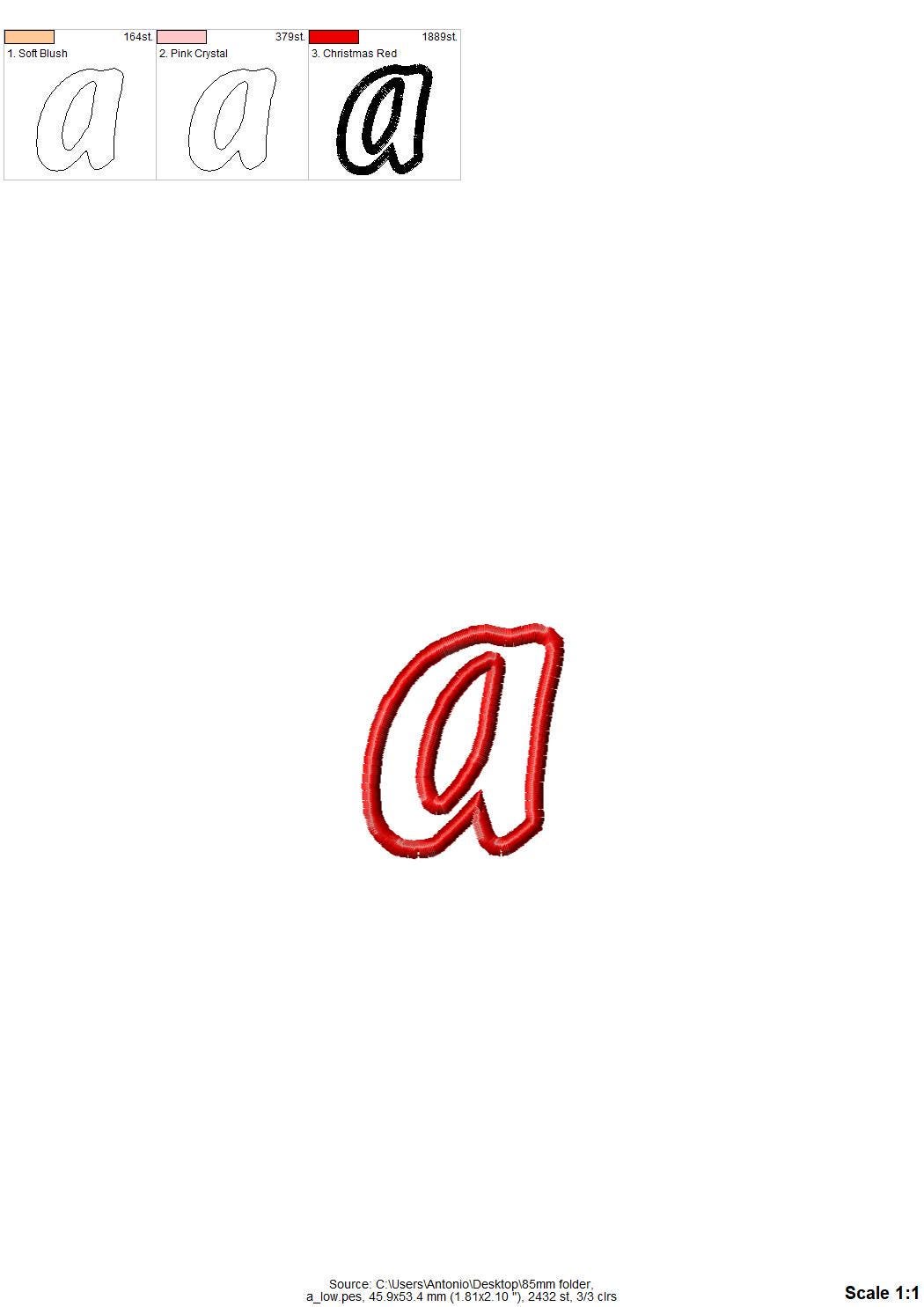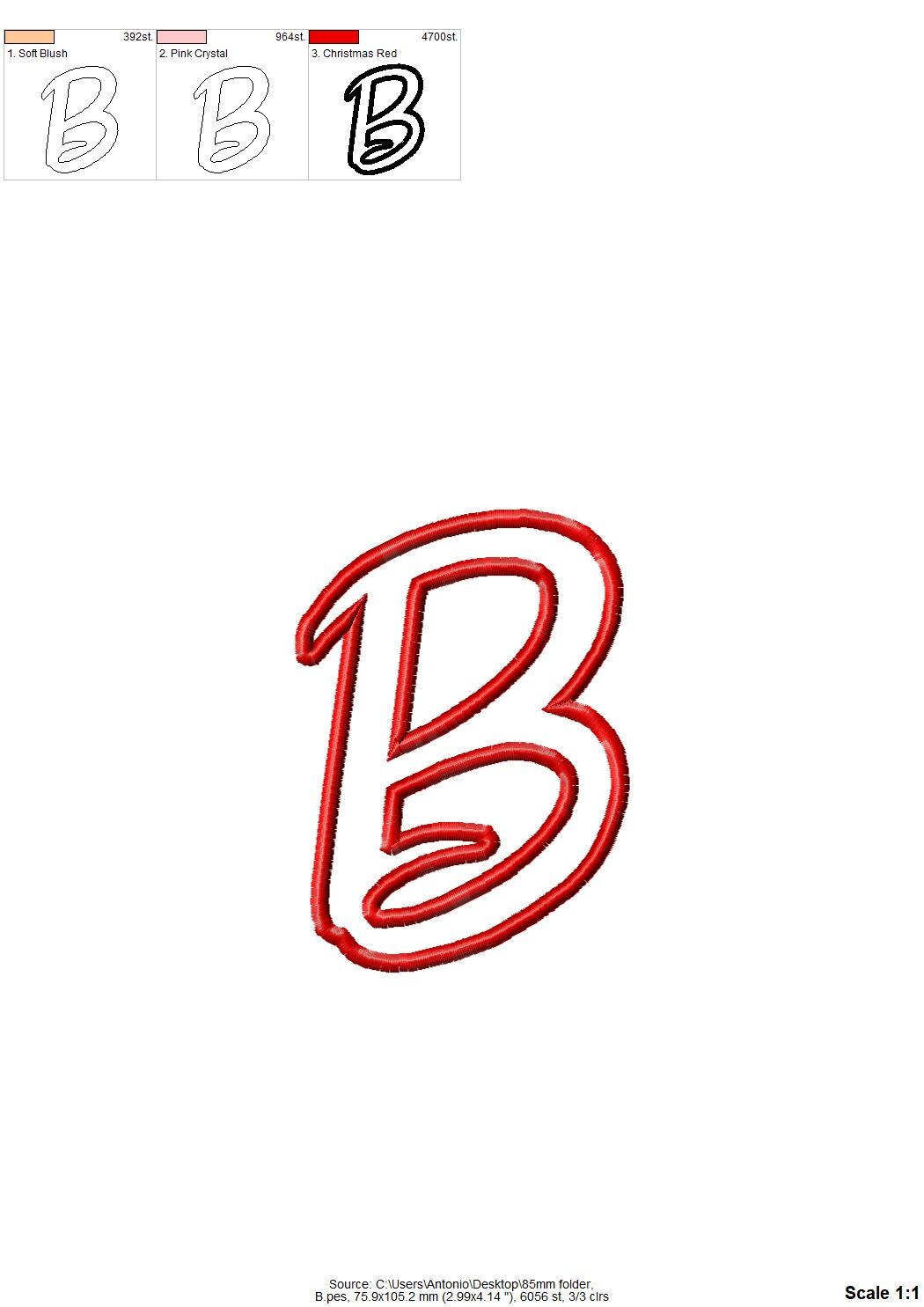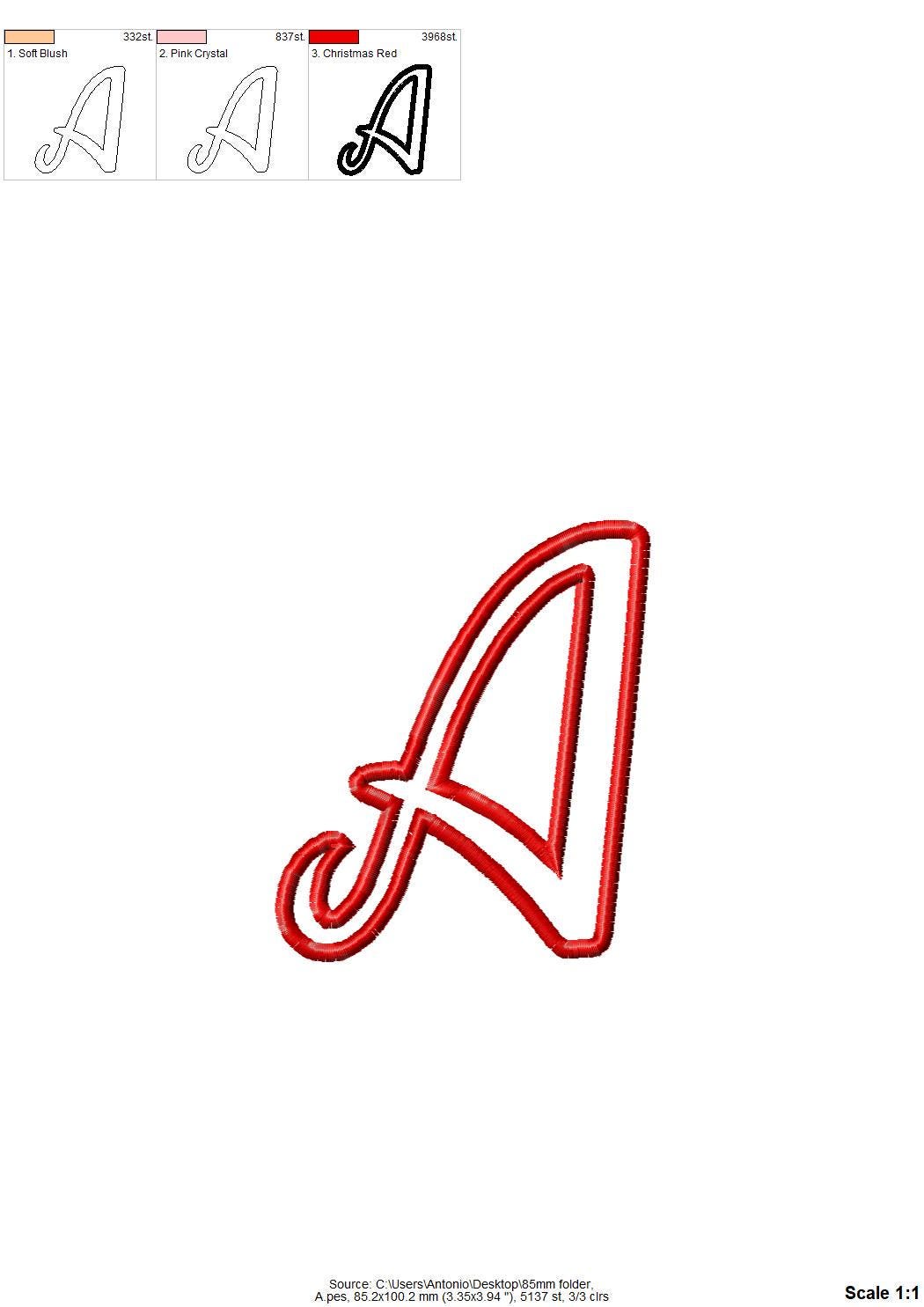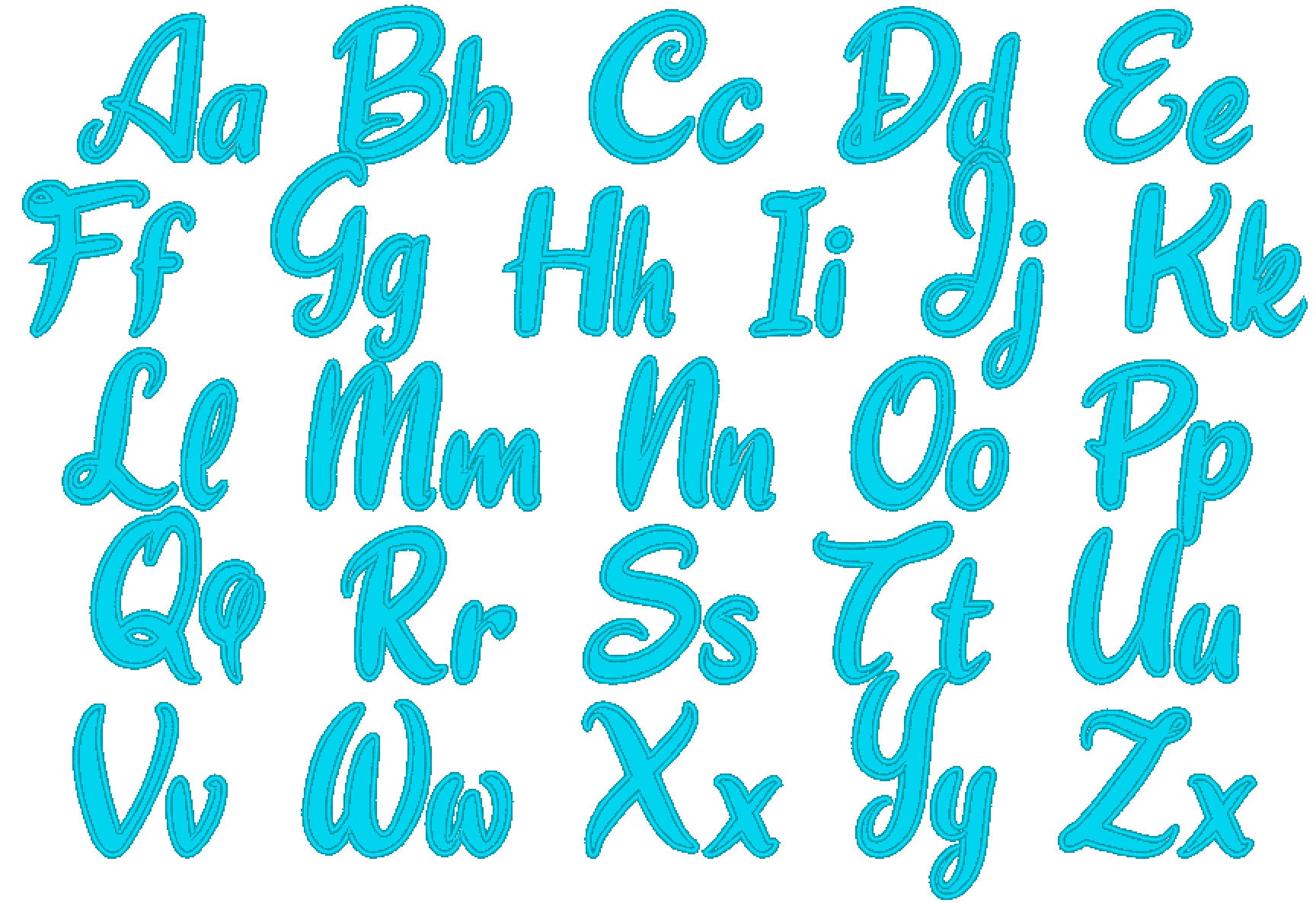
Handwritten Calligraphy monogram Font applique satin stitch outline machine embroidery designs alphabet sizes 2 up to 4.6 inches, and BX included
Uppercase and lowercase letters.